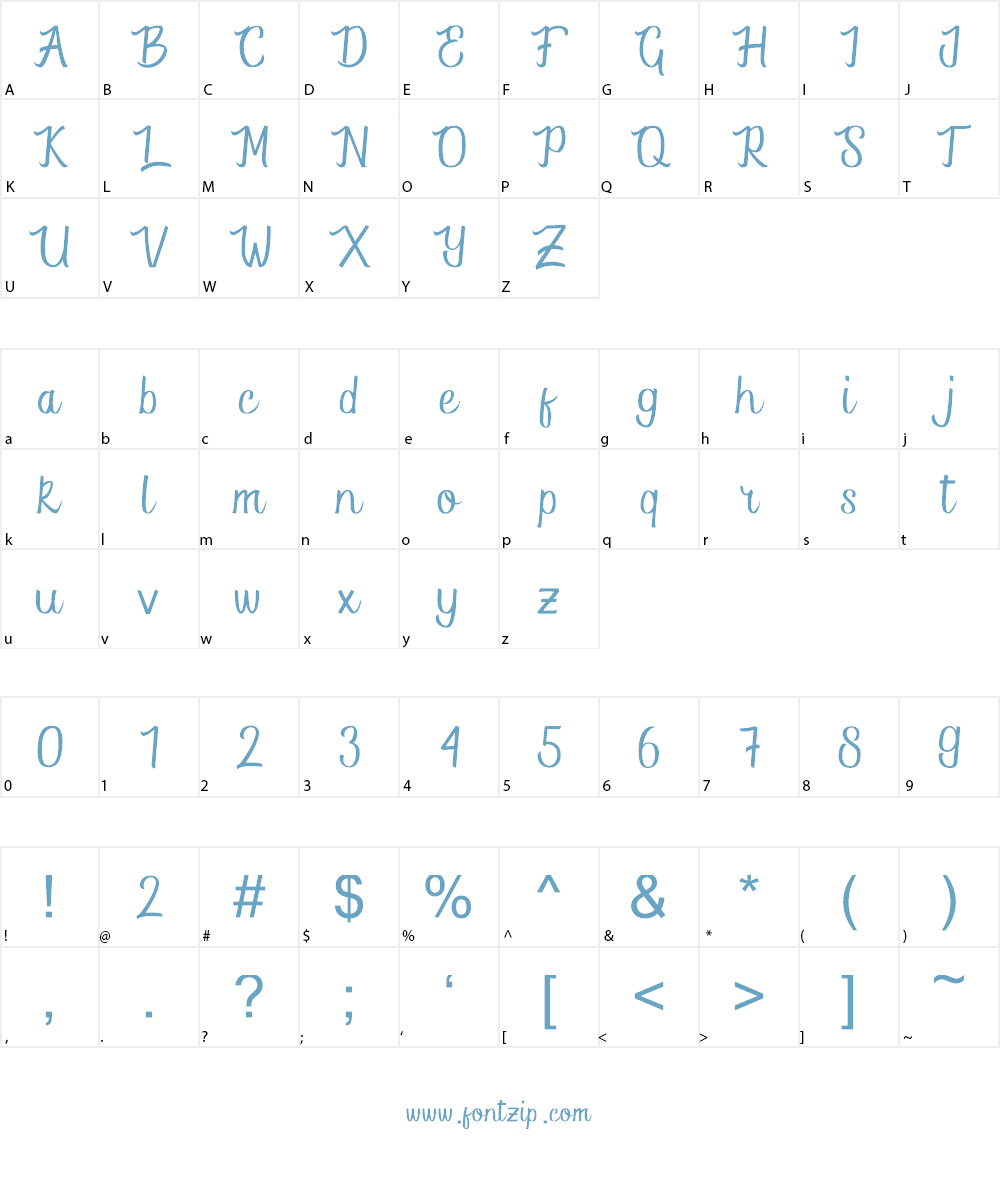
Jallarre - brush script font created with a medium thickness pen brush that will make your design look cool.
Jallarre - will be perfect for magazines, business cards, invitations, packaging, t-shirt, and all designs that require signature, modern and luxurious elements.
- Ligature